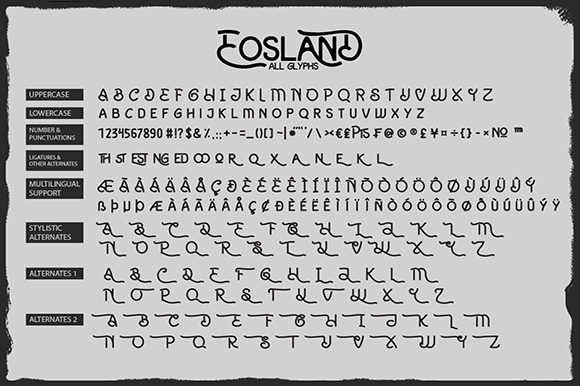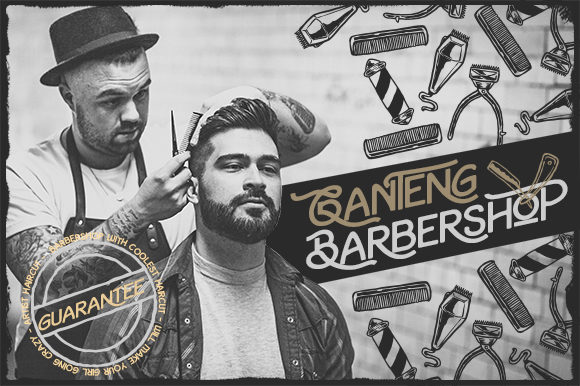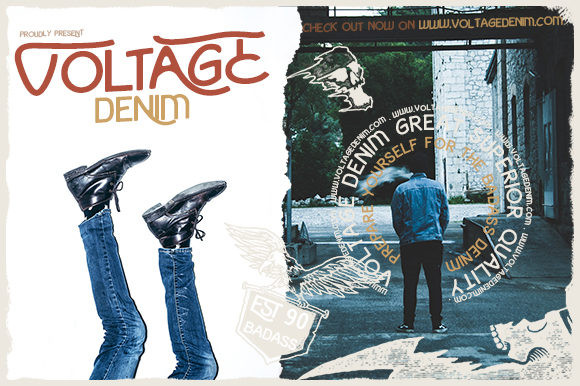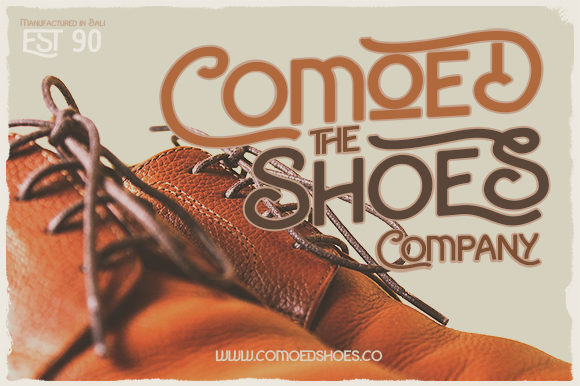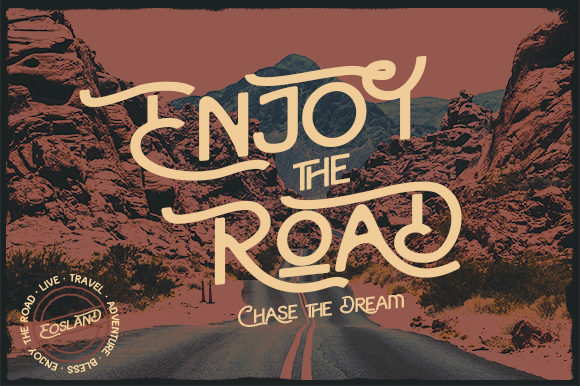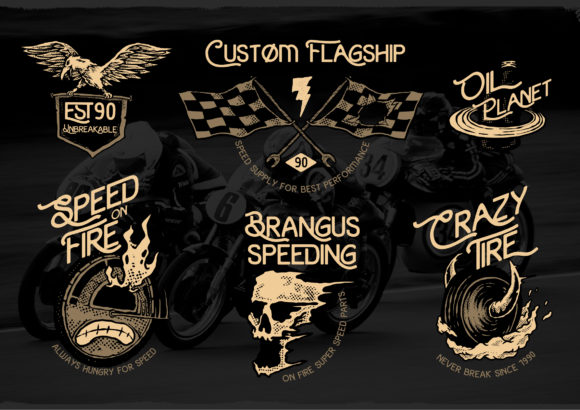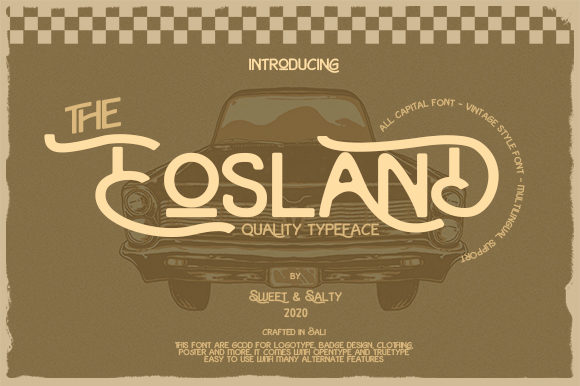
Eosland Font: A Simple yet Playful Display Font with a Unique Charm
Are you a designer or crafter looking for a font that can add a touch of personality to your project? Look no further than Eosland Font! This simple yet playful display font is designed to capture the hearts of creative enthusiasts with its unique charm and dynamic swashes.
The Inspiration Behind Eosland Font
Eosland Font is the brainchild of talented font designers who aimed to create a typeface that exudes playfulness and whimsy. The font’s design is inspired by the beauty of handwritten scripts, with a modern twist that makes it perfect for a wide range of applications. Whether you’re working on a branding project, a craft tutorial, or a digital design, Eosland Font is sure to bring a smile to your face.
Key Features of Eosland Font
• Simple yet Playful Design: Eosland Font boasts a clean and straightforward design that makes it easy to read and recognize. However, its playful elements, such as the dynamic swashes, add a touch of fun and personality to the font.
• Dynamic Swashes: One of the standout features of Eosland Font is its dynamic swashes. These elegant flourishes can be used to add a touch of sophistication and elegance to your designs.
• Unique Charm: Eosland Font has a unique charm that sets it apart from other display fonts. Its quirky and whimsical design makes it perfect for creative projects that require a personal touch.
• Multilingual Support: Eosland Font supports multiple languages, making it a great choice for designers and crafters who work with international clients or create content for a global audience.
Uses of Eosland Font
Eosland Font is a versatile typeface that can be used in a wide range of applications, including:
• Branding and Logo Design: Eosland Font’s playful and dynamic design makes it perfect for branding and logo design projects that require a touch of personality.
• Crafting and DIY Projects: Crafters and DIY enthusiasts will love Eosland Font’s whimsical design, which is perfect for crafting tutorials, blog posts, and social media graphics.
• Digital Design: Eosland Font can be used in digital designs, such as social media graphics, blog posts, and website headers, to add a touch of playfulness and personality.
• Print Design: Eosland Font is also suitable for print design projects, such as brochures, flyers, and posters, where its unique charm can help grab the audience’s attention.
Tips for Using Eosland Font
To get the most out of Eosland Font, here are some tips to keep in mind:
• Use it as a Display Font: Eosland Font is designed to be used as a display font, so use it to add a touch of personality to your headings, titles, and captions.
• Experiment with Swashes: Don’t be afraid to experiment with Eosland Font’s dynamic swashes to add a touch of elegance and sophistication to your designs.
• Pair it with Other Fonts: Eosland Font can be paired with other fonts to create a unique and visually appealing design. Try pairing it with a sans-serif font for a modern look or a serif font for a more traditional look.
Eosland Font is a simple yet playful display font that is sure to capture the hearts of designers and crafters. Its unique charm, dynamic swashes, and multilingual support make it a versatile typeface that can be used in a wide range of applications. Whether you’re working on a branding project, a craft tutorial, or a digital design, Eosland Font is a great choice for adding a touch of personality and whimsy to your project.